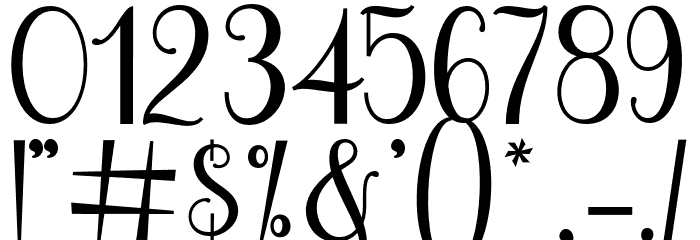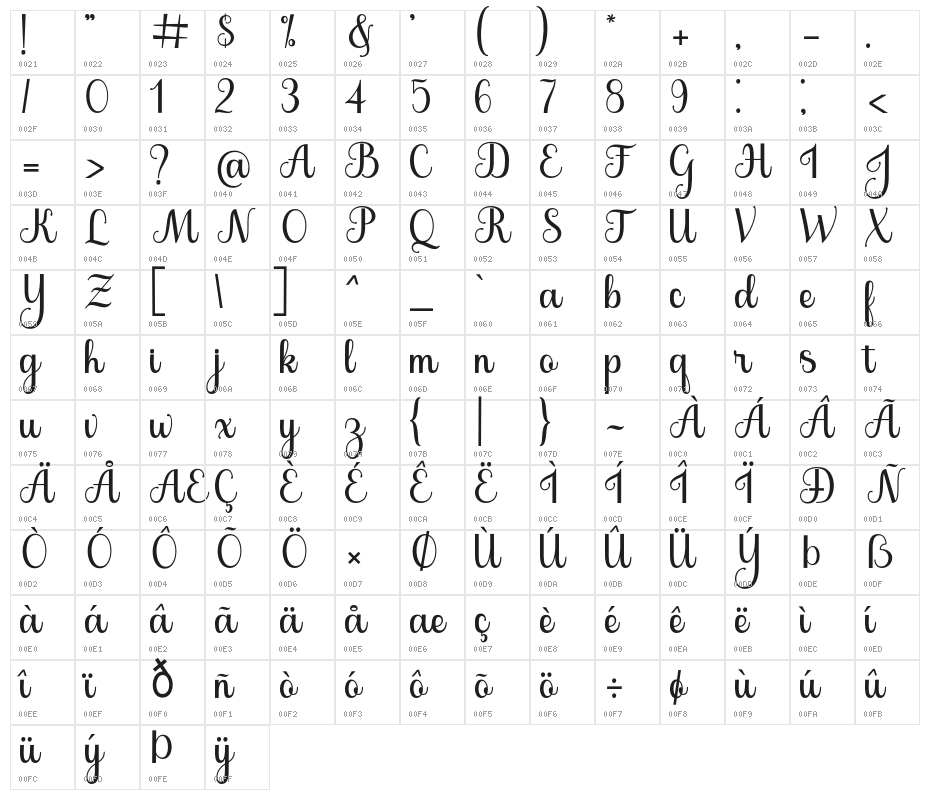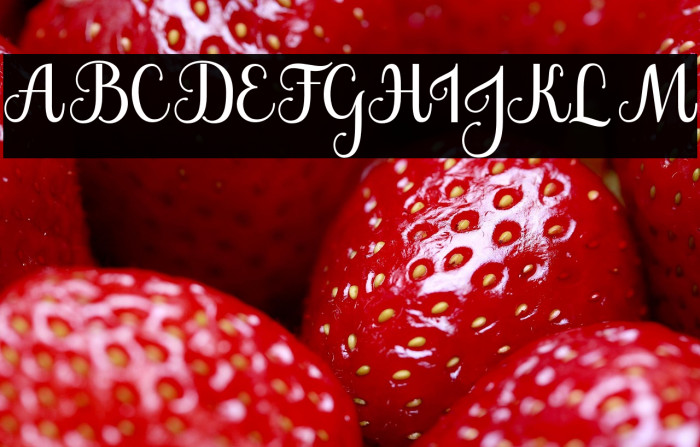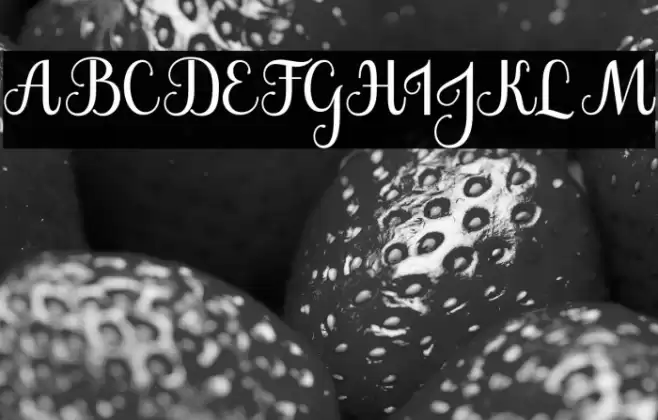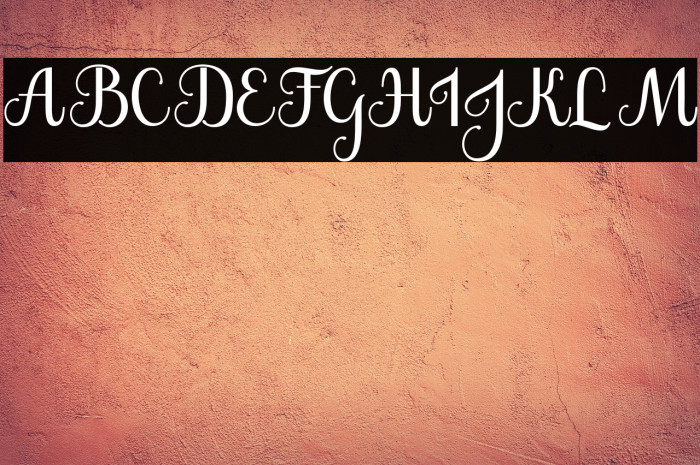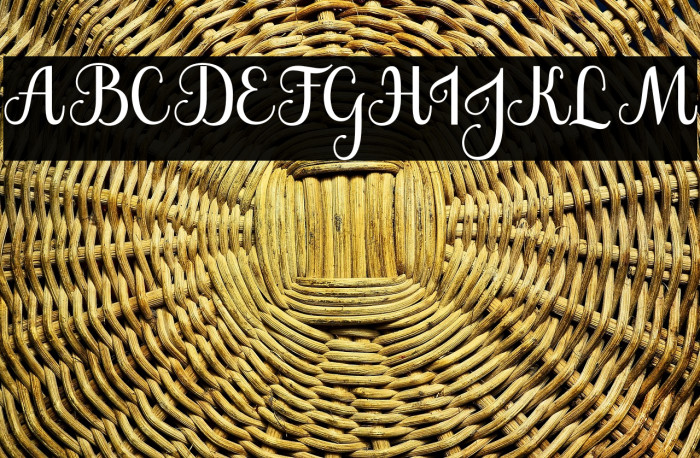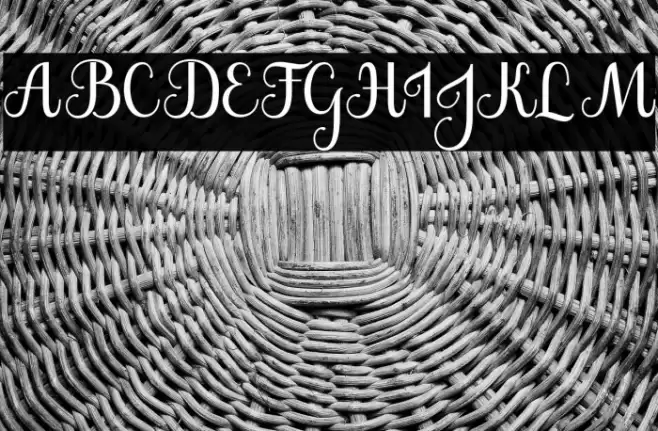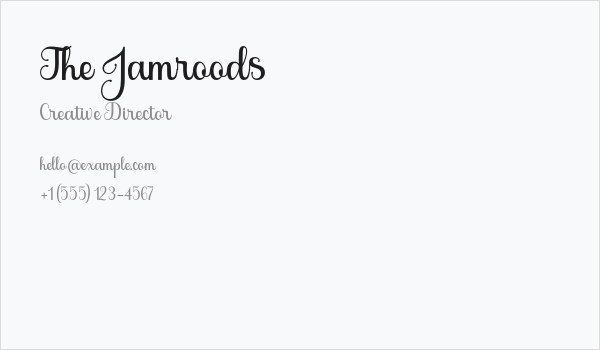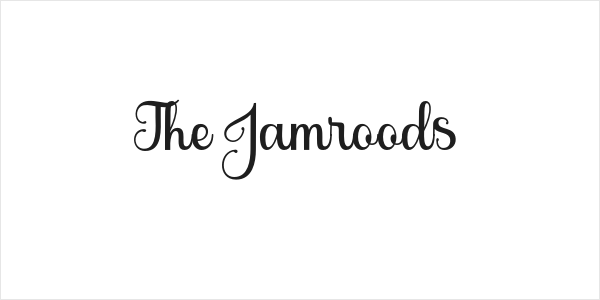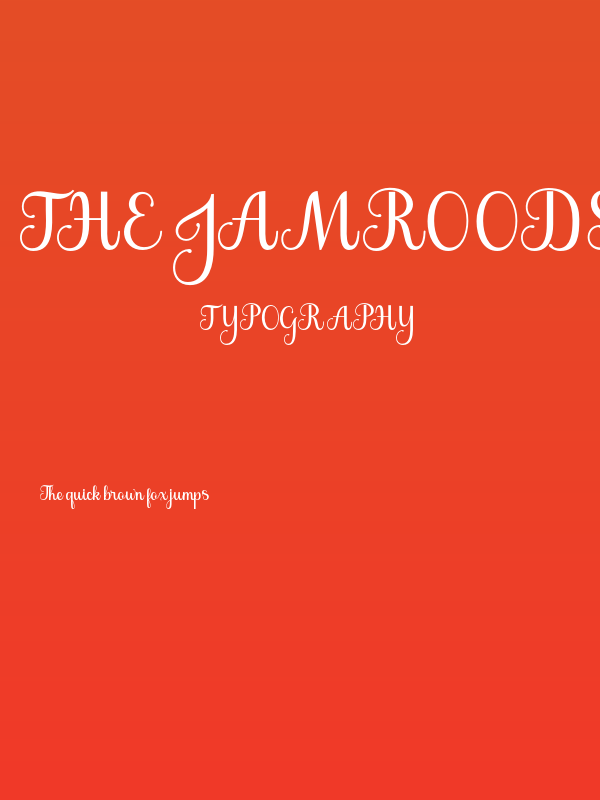
The Jamroods Font
The Jamroods Description
This font features a playful and elegant script style with a flowing, cursive design. The uppercase letters are characterized by their graceful loops and swirls, giving them a whimsical yet sophisticated appearance. The lowercase letters maintain a consistent style, with smooth curves and a slightly more compact form. The numerals are distinct and easy to read, with a slight slant that complements the overall script aesthetic. Special characters are designed to match the font's playful nature, adding a touch of flair to any text. The font's overall design is both decorative and functional, making it suitable for a variety of creative projects.
| Proposed Projects | Ideal for wedding invitations, greeting cards, branding, and decorative signage. |